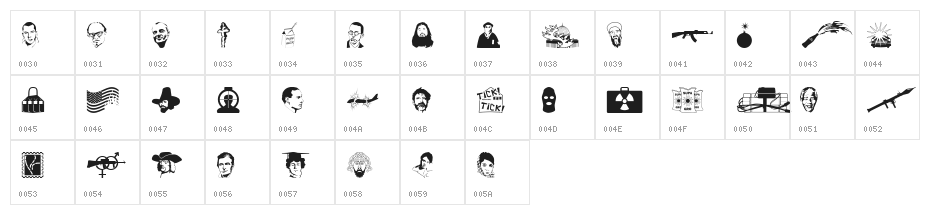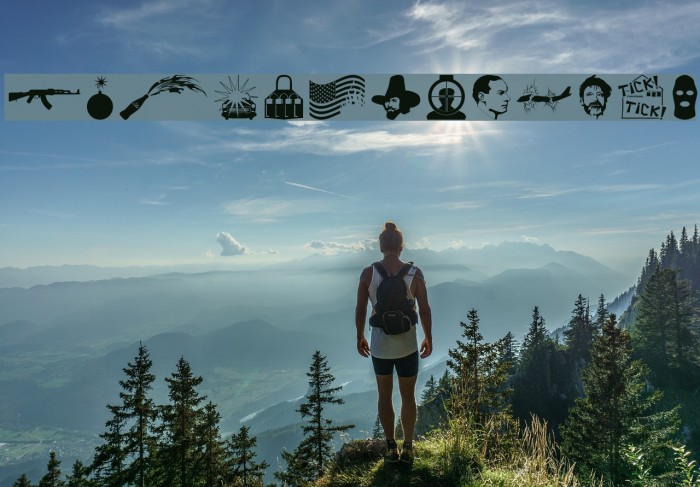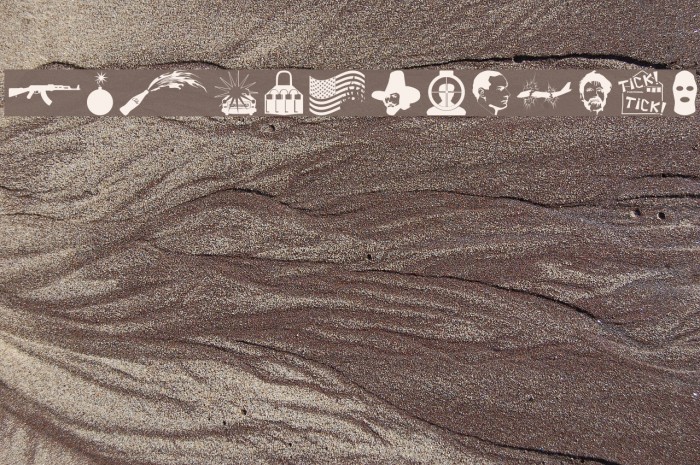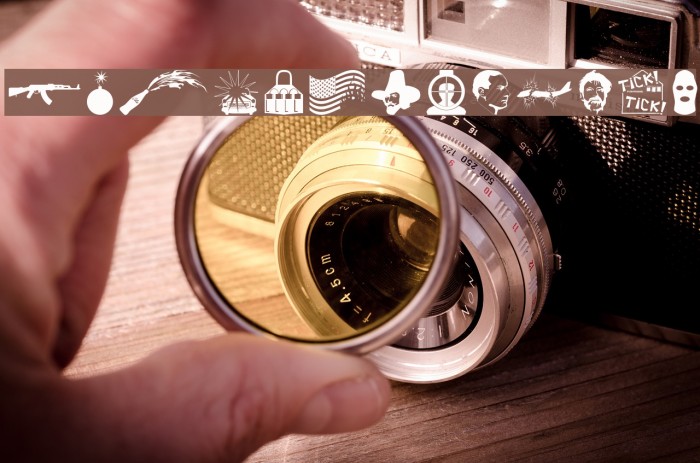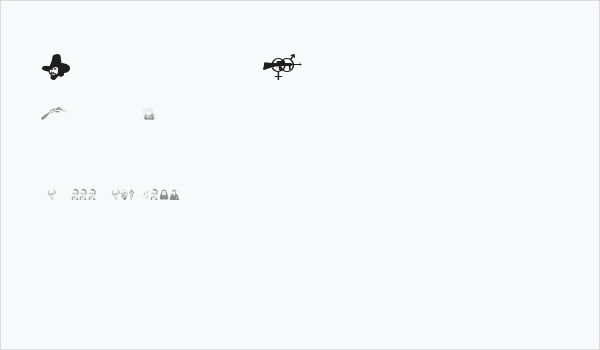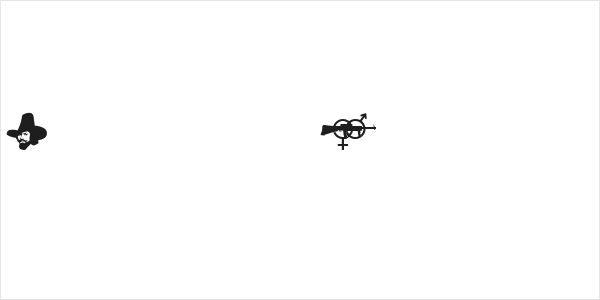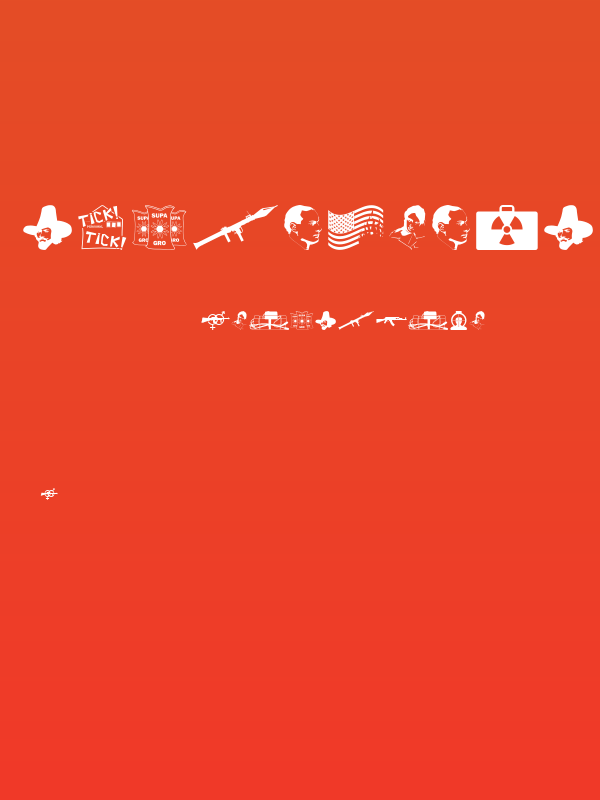
Glorifying Terrorism Font
Glorifying Terrorism Description
A collection of highly detailed, provocative black-and-white pictograms and caricatures referencing weapons, explosions, masked figures, and controversial personalities, rendered in a bold, graphic style with strong contrast and minimal shading.
| Overall Style | Decorative, Provocative, Graphic |
| Use Case | Display, Editorial, Posters, Satire |
| Proposed Projects | Satirical artwork, protest posters, editorial illustrations, themed zines, or counter-culture projects. |